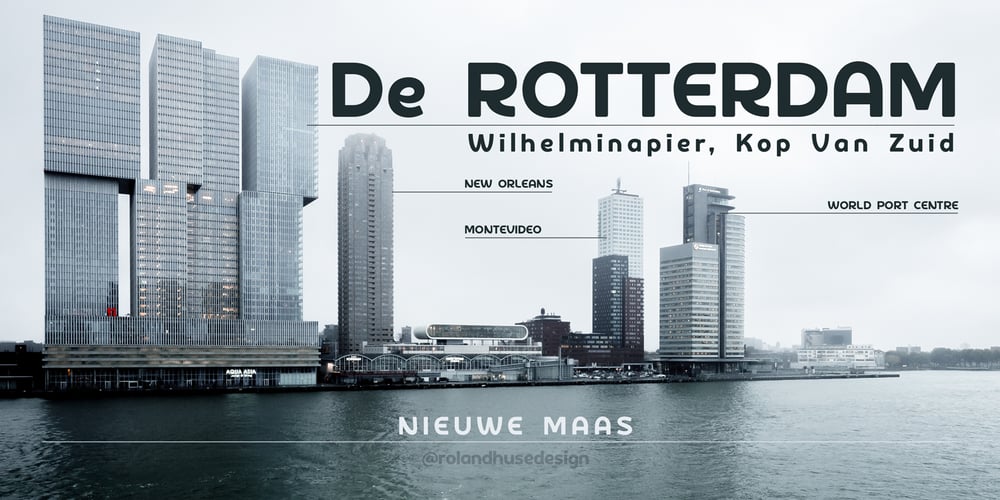
De Rotterdam
De Rotterdam font
De Rotterdam Font Family was designed by Roland Hüse and published by Roland Hüse Design. De Rotterdam contains 1 styles and family package options. This font is a clean, modern sans serif bold. Named after “De Rotterdam”* this huge and super cool building (read the story below). Great for headlines, Posters, Flyers but also well legible at small size in large texts. Contains All European language accents and characters. — The Story — *This complex is located in the Kop Van Zuid district of Rotterdam, on Wilhelminapier. I was lucky to see this building from the beginning (2009) growing up (2013) That time when I was working and living here. I was always amazed by the design and how huge it is every time I took a look at it while driving or walking on the Erasmus Bridge. When I was going to work or just hiking around the city. It has a special meaning and message for me: I started creating fonts in my free time in 2010 when I came to this city to work. I was factory worker, dishwasher etc. I grew together with this amazing construction from brick to brick, step by step. By the time its construction finished, I was able to quit my day job and become a full time freelance designer.